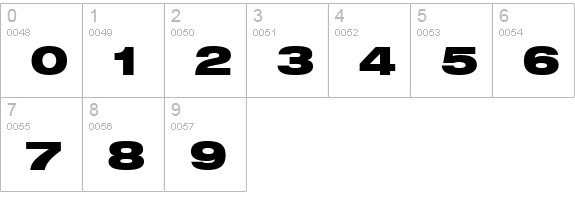
Context Reprise BlackExp SSi Bold is a strong, high-contrast variant in the Context typeface family \xE2\x80\x94 well suited to headlines, attention-grabbing titles, and strong calls-to-action.
Context Reprise BlackExp SSi Bold is a striking and bold font that commands attention with its strong and impactful presence. Its thick and sturdy letterforms make it perfect for headlines, titles, and other display purposes where you want your text to stand out. The font exudes confidence and authority, making it ideal for projects that require a bold and assertive look. What makes Context Reprise BlackExp SSi Bold even better is that it is available for free download at FontsMarket.com. This means you can easily access and use this impressive font in your design projects without any cost. Whether you're working on posters, flyers, banners, or any other creative project, Context Reprise BlackExp SSi Bold is sure to make a bold statement and leave a lasting impression. Download it today and take your designs to the next level!